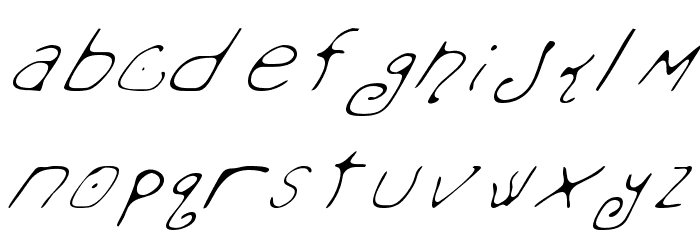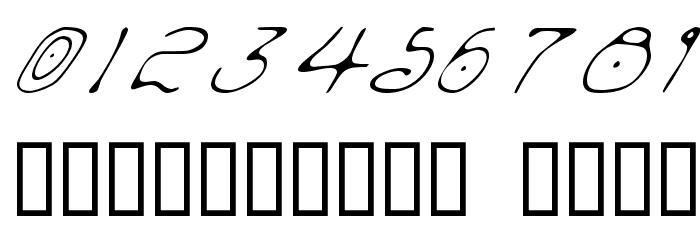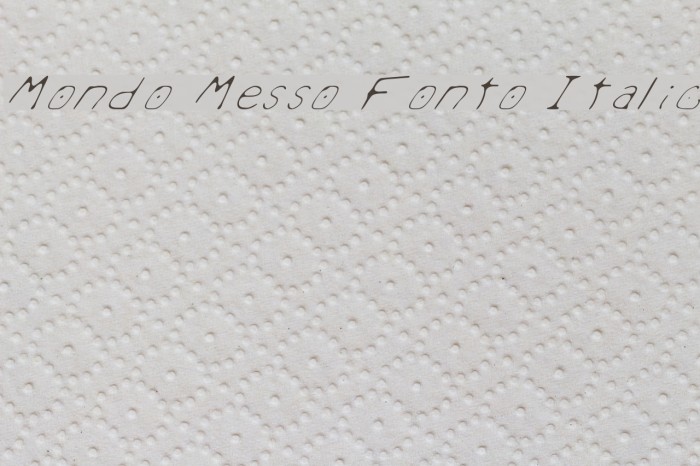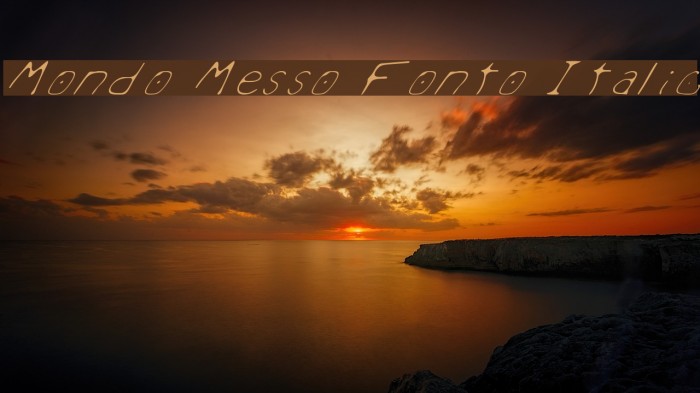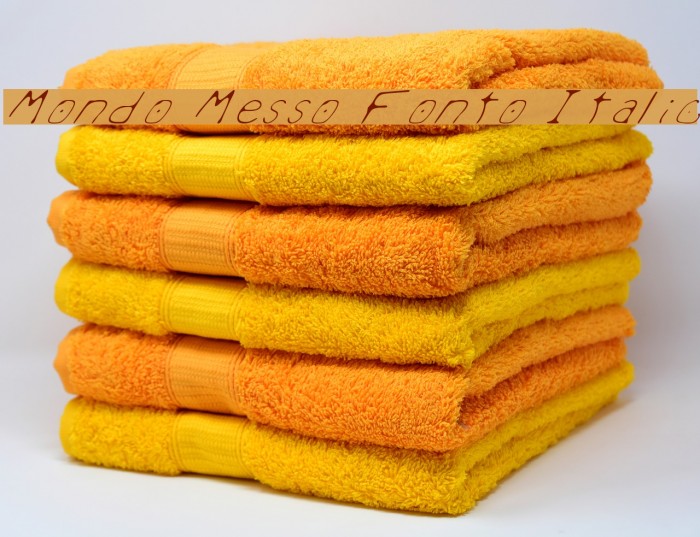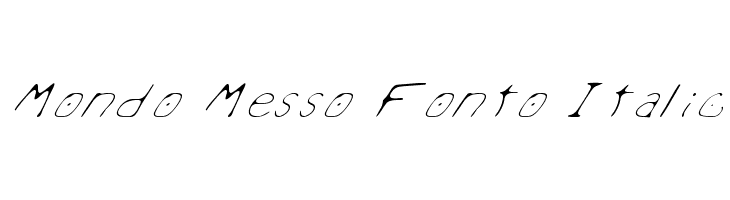
Mondo Messo Fonto Italic Font
This font features a whimsical and artistic style, characterized by its flowing and dynamic letterforms. The uppercase letters exhibit a playful, swirling design, while the lowercase letters maintain a consistent fluidity, adding a sense of movement and creativity. The numbers and special characters continue this theme, incorporating unique twists and curves that enhance the overall aesthetic. The font's design suggests a handwritten, calligraphic influence, making it suitable for projects that require a touch of elegance and individuality.
A whimsical, artistic font with flowing, dynamic letterforms and a calligraphic influence.
- Proposed Projects: Ideal for creative projects such as invitations, greeting cards, artistic posters, and branding materials that require a unique and elegant touch.
- Use Case: Logos, Invitations, Artistic Posters